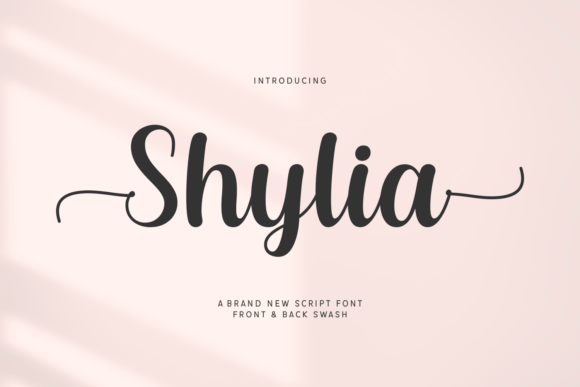
Introducing Shylia Font: The Epitome of Elegance and Friendliness
In the vast universe of typography, fonts play a pivotal role in conveying messages, evoking emotions, and creating lasting impressions. Among the myriad of fonts available, Shylia Font stands out as a beacon of elegance, friendliness, and versatility. This clean and classy script font is designed to add a touch of sophistication and approachability to various design projects, making it an ideal choice for creatives and designers alike.
The Characteristics of Shylia Font
Shylia Font is distinguished by its soft curves and casual strokes, which lend it a unique personality that is both elegant and inviting. One of the defining features of Shylia is the elegant swashes at both ends of its letters, adding a flourish of sophistication and style. These swashes not only enhance the aesthetic appeal of the font but also provide a versatile tool for designers to experiment with different looks and feels.
Key Features of Shylia Font:
- Clean and Classy Design: Shylia boasts a clean and classy appearance that makes it suitable for a wide range of applications, from luxury branding to casual blog titles.
- Friendly Personality: The font exudes a friendly and approachable vibe, making it perfect for designs that aim to connect with the audience on a personal level.
- Elegant Swashes: The elegant swashes at both ends of the letters add a touch of sophistication and can be used creatively to enhance the visual appeal of any design.
- Soft Curves and Casual Strokes: These characteristics give Shylia its unique feel, making it stand out from more traditional or formal fonts.
Applications of Shylia Font
The versatility of Shylia Font makes it an excellent choice for a variety of design projects. Whether you’re working on a branding campaign, crafting blog titles, creating social media content, or designing labels for handmade products, Shylia can add that extra flair that makes your work stand out.
1. Branding:
In the realm of branding, establishing a strong visual identity is crucial. Shylia Font, with its elegant and friendly demeanor, can help brands communicate their values and personality effectively. It’s ideal for:
- Logos: The distinctive swashes and elegant curves make Shylia perfect for creating memorable logos.
- Packaging: Add a touch of class and sophistication to your product packaging.
- Marketing Materials: Brochures, flyers, and business cards designed with Shylia will undoubtedly leave a lasting impression.
2. Blog Titles and Social Media:
For bloggers and social media influencers, engaging and distinctive content is key. Shylia Font can elevate your:
- Blog Titles: Make your blog titles pop with Shyliaβs elegant and friendly aesthetic.
- Social Media Graphics: Enhance your social media posts and stories with stylish text that captures attention.
3. Handmade Product Labels:
For artisans and creators, product labels are an essential part of their brand’s presentation. Shylia Font brings a:
- Personal Touch: Add a personal and elegant touch to your product labels.
- Market Appeal: Stand out in markets and online stores with beautifully designed labels.
Why Choose Shylia Font?
Choosing a font for your design project can be overwhelming, given the numerous options available. However, Shylia Font offers a unique combination of elegance, friendliness, and versatility that sets it apart. Here are a few reasons why Shylia should be your go-to font:
- Universal Appeal: Its clean and classy design appeals to a wide audience, making it suitable for diverse projects.
- Emotional Connection: The friendly personality of Shylia helps create an emotional connection with the audience.
- Design Flexibility: With its elegant swashes and soft curves, Shylia offers immense flexibility for creative experimentation.
Shylia Font is more than just a script font; it’s a tool that can elevate your design projects with its elegant and friendly aesthetic. Whether you’re aiming for sophistication, approachability, or a bit of both, Shylia offers the perfect blend of style and versatility. By incorporating Shylia into your designs, you’re not just choosing a font; you’re adopting a visual language that communicates elegance, warmth, and approachability.
Final Tips for Using Shylia Font:
- Experiment with Swashes: Donβt be afraid to play around with the swashes to find the perfect look for your project.
- Mix and Match: Combine Shylia with other fonts for interesting typography.
- Consider Your Audience: Keep in mind the personality and preferences of your target audience when using Shylia.
Embracing Shylia Font in your design endeavors can significantly enhance the visual appeal and emotional impact of your work. With its timeless elegance and friendly charm, Shylia is poised to become your trusted companion in the world of typography.